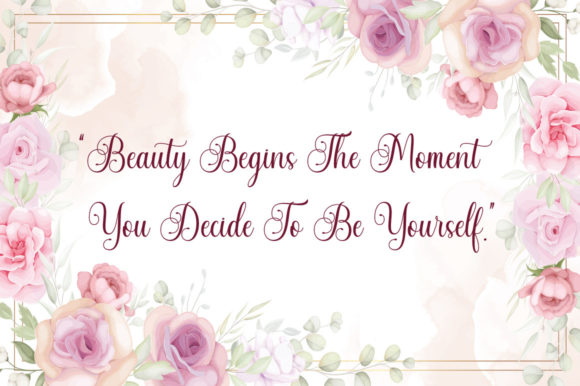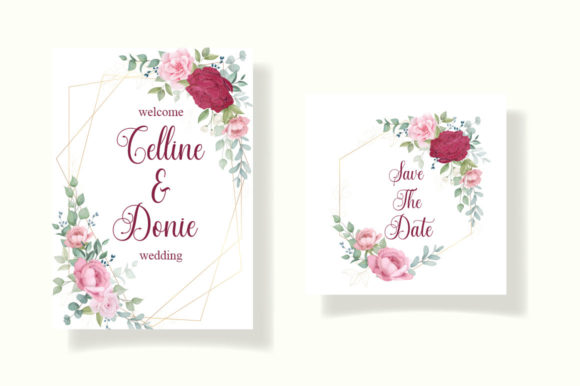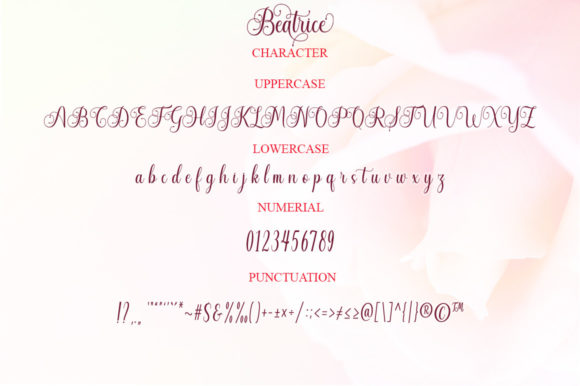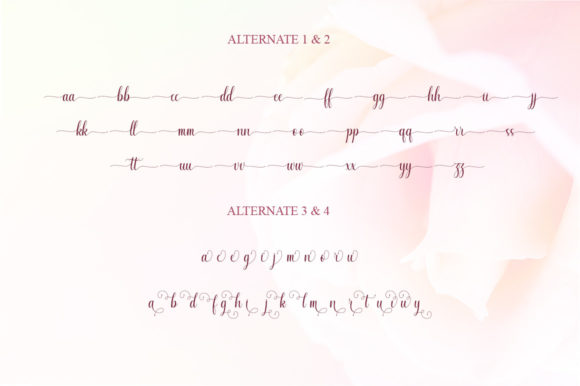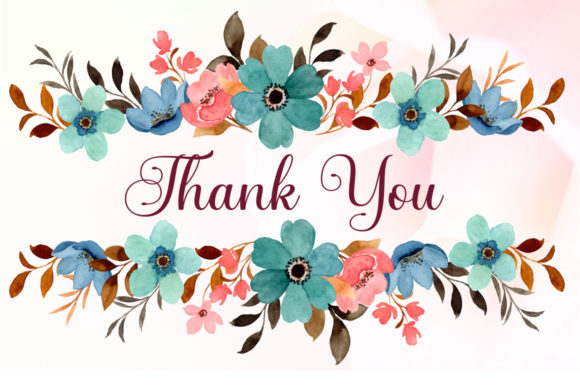
Discover the Charm of Beatrice Font: A Timeless Handwritten Delight
Are you on the hunt for a font that exudes elegance, sophistication, and a touch of whimsy? Look no further than Beatrice Font, a lovely and timeless handwritten font that’s perfect for creating eye-catching logos, branding, and quotes. In this article, we’ll dive into the world of Beatrice Font, exploring its features, benefits, and uses, and why it’s a must-have for designers and crafters alike.
What is Beatrice Font?
Beatrice Font is a beautiful, handwritten font that’s been crafted to bring a touch of warmth and personality to your designs. Its elegant, cursive strokes and flowing lines make it perfect for creating stunning logos, branding materials, and quotes that are sure to capture attention. Whether you’re a designer, crafter, or DIY enthusiast, Beatrice Font is an excellent choice for adding a personal touch to your projects.
Key Features of Beatrice Font
- PUA Encoded: Beatrice Font is PUA (Private Use Area) encoded, which means you can access all the glyphs and swashes with ease. This feature makes it simple to customize your designs and add unique touches.
- Handwritten Style: The font’s handwritten style gives it a personal, organic feel that’s perfect for creating authentic and engaging designs.
- Elegant and Timeless: Beatrice Font’s classic, elegant design ensures it will remain timeless and stylish for years to come.
- Versatile: This font is versatile and can be used for a wide range of projects, from logos and branding to quotes and social media graphics.
Benefits of Using Beatrice Font
- Easy to Read: Beatrice Font is clear and easy to read, making it perfect for body text and quotes.
- Highly Customizable: With PUA encoding, you can easily access and customize the font’s glyphs and swashes to suit your design needs.
- Unique and Eye-Catching: Beatrice Font’s elegant, handwritten style ensures your designs will stand out from the crowd.
Uses for Beatrice Font
Beatrice Font is perfect for a wide range of projects, including:
- Logo Design: Create stunning logos that showcase your brand’s personality and style.
- Branding: Use Beatrice Font to create consistent, recognizable branding across all your marketing materials.
- Quotes and Social Media Graphics: Add a touch of elegance and sophistication to your quotes and social media graphics.
- Stationery and Invitations: Create beautiful stationery, invitations, and greeting cards that showcase your personal style.
- Use the Font’s Glyphs and Swashes: Take advantage of the font’s PUA encoding to access and customize the glyphs and swashes.
| Font Name | Beatrice Font |
| Author | soderi graphicslide |
In conclusion, Beatrice Font is a lovely and timeless handwritten font that’s perfect for designers, crafters, and DIY enthusiasts. Its elegant, cursive strokes and flowing lines make it ideal for creating stunning logos, branding materials, and quotes. With its PUA encoding, versatility, and ease of use, Beatrice Font is a must-have for anyone looking to add a touch of personality and style to their designs.